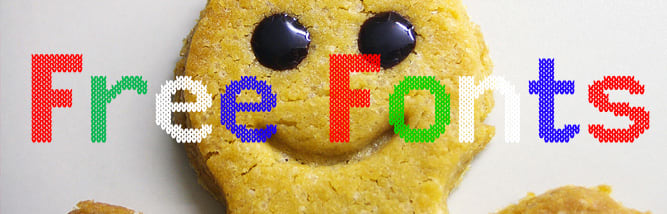
The holiday season is here again! In the spirit of giving, here are 10 free fonts to bring out the holiday feel in your holiday messages, flyers, packaging and Christmas card designs.
1. The Goldsmith Vintage
The Goldsmith Vintage has an old time feel that could work well in throw back holiday designs.
2. Dosmilcatorce
A font that might fit into the more corporate side of the holidays is Dosmilcatorce.
3. Abys
Abys does a nice job handling the more hip side of the holiday season.
4. Intaglio Plains
In a more “handmade” design, Intaglio Plains might just do the trick!
5. Lumberjack
For more rugged clients or companies, Lumberjack can help bring in just a little holiday feel.
6. Xxdcore
Xxdcore can be stylistically interpreted in many ways, here it might speak to a tree!
7. Artistico
Those in colder regions know what else comes with the season—snow! Artistico is perfect for the frigid designer.
8. Christmas Jumper
Ugly sweaters are a staple of the holiday season. Why not have a “Christmas Jumper” font to go with!
9. Goodvibes
Goodvibes is a perfectly acceptable handwritten font for cards or otherwise.
10. Zfraktur Eye Fs
Zfraktur Eye Fs is another open ended font with perhaps hints to the religious sides of the season.